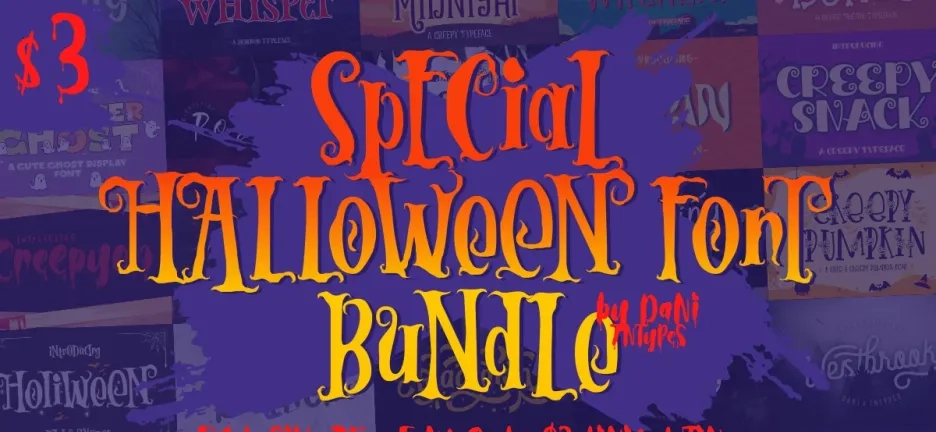
Special Halloween Font Bundle
Elevate your Halloween projects with our Special Halloween Font Bundle. This collection features a variety of unique and festive fonts that capture the spirit of the season. Perfect for creating eye-catching designs for invitations, posters, and social media graphics.
• Multiple font styles including script, display, and decorative.
• Various weights to suit different design needs.
• Designed for easy readability and aesthetic appeal.
Use these fonts for Halloween-themed branding, logos, greeting cards, and any creative project that needs a spooky touch!